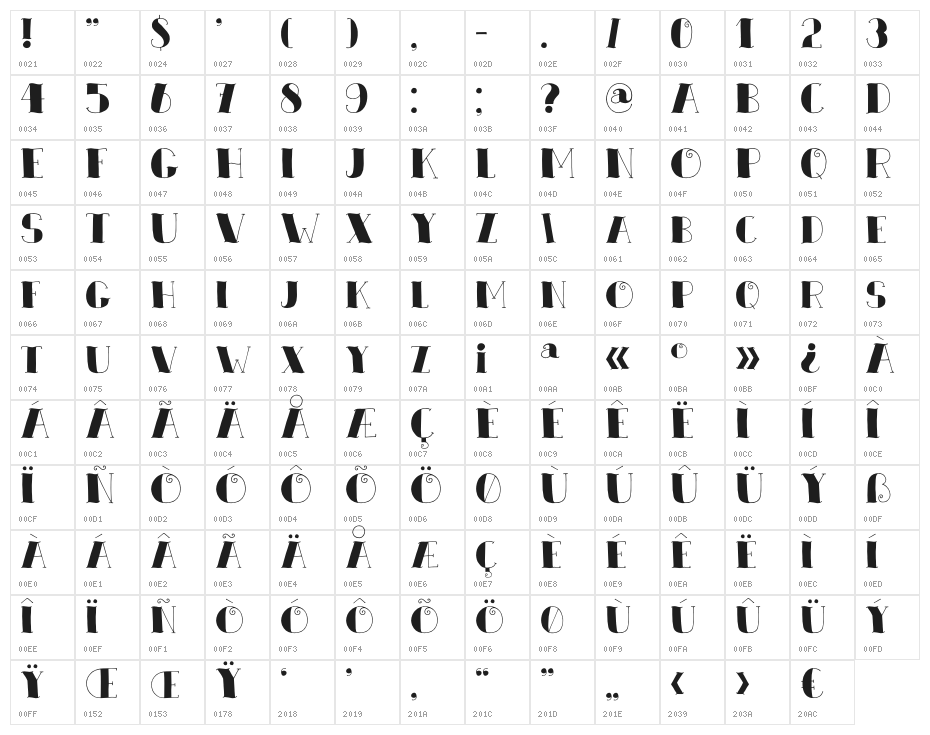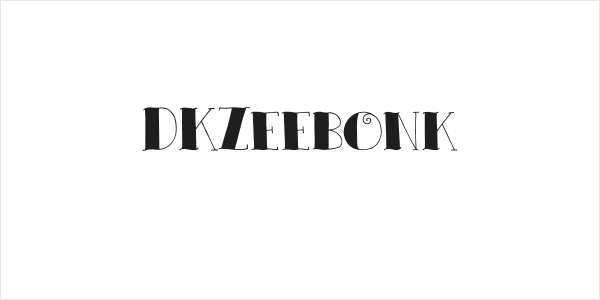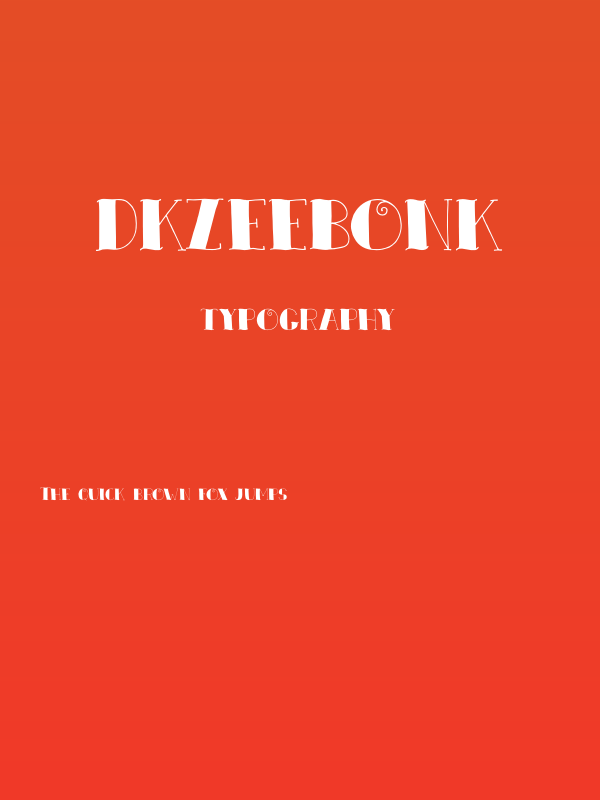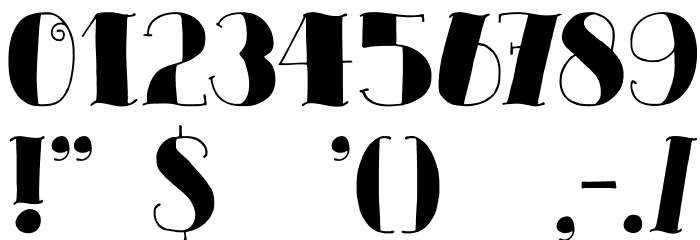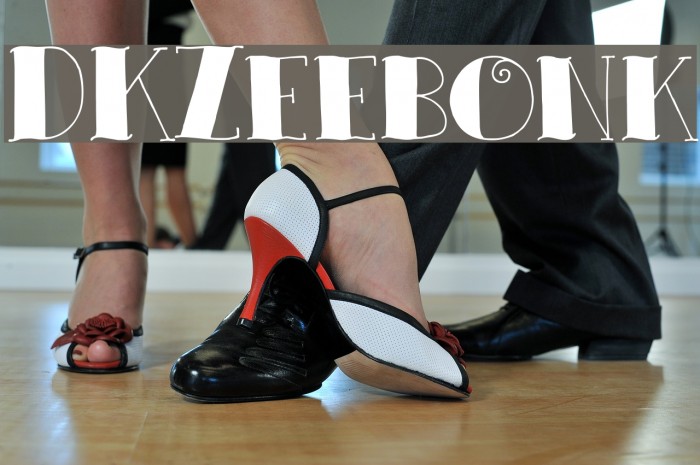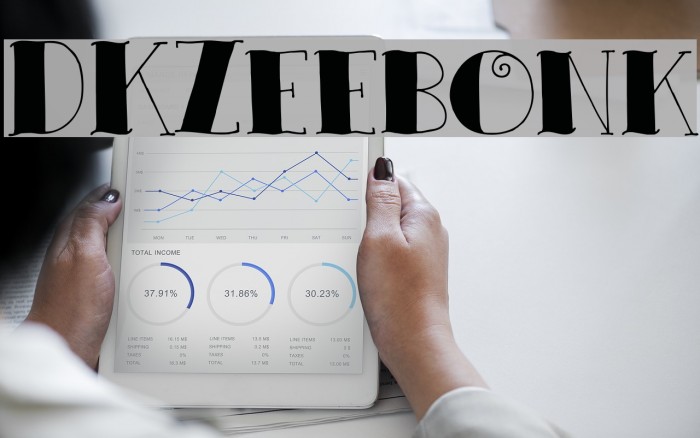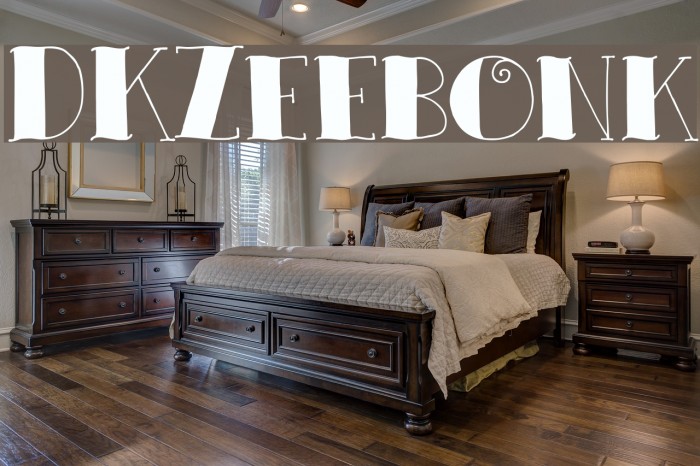
DKZeebonk Font
This font features a playful and whimsical design with a mix of thick and thin strokes, creating a dynamic and eye-catching appearance. The uppercase letters have a bold presence with unique, exaggerated serifs and curves, while the lowercase letters maintain a consistent style with a slightly more delicate touch. The numbers and special characters follow the same playful theme, with some characters incorporating spiral or looped elements. This font's distinctive style makes it suitable for creative and artistic projects, where a bold and fun aesthetic is desired.
| Proposed Projects | Ideal for children's books, playful branding, creative posters, and artistic invitations. |